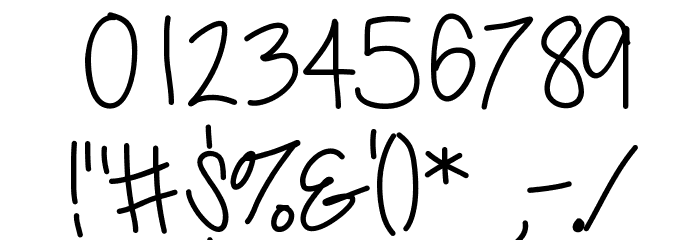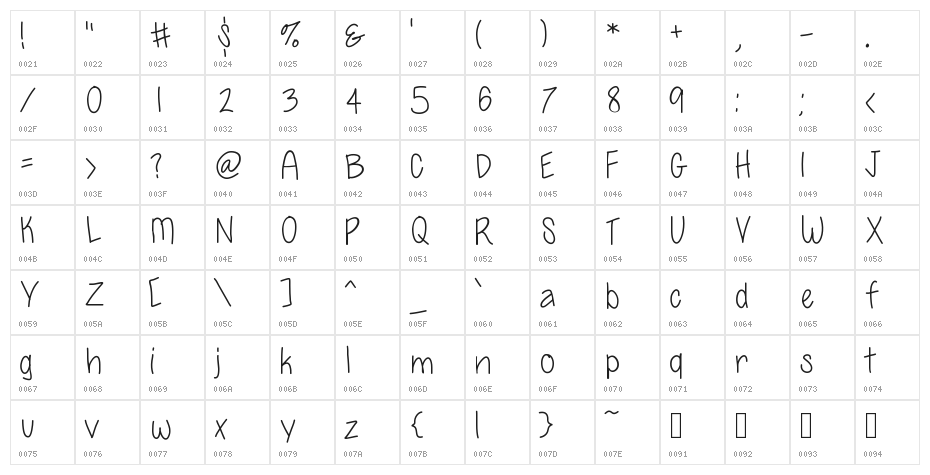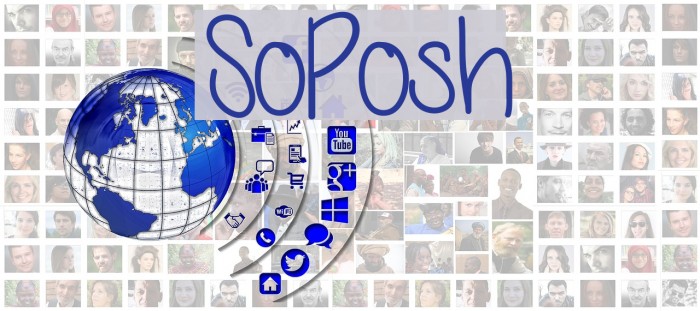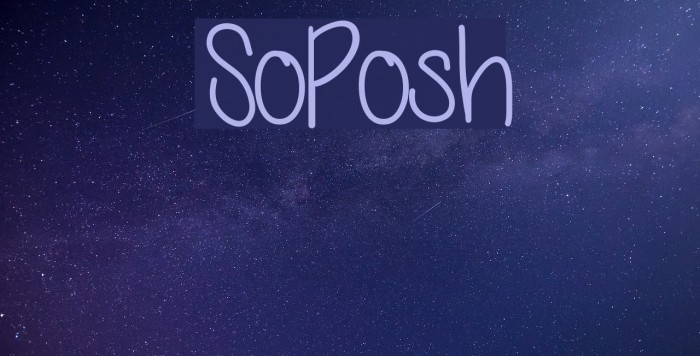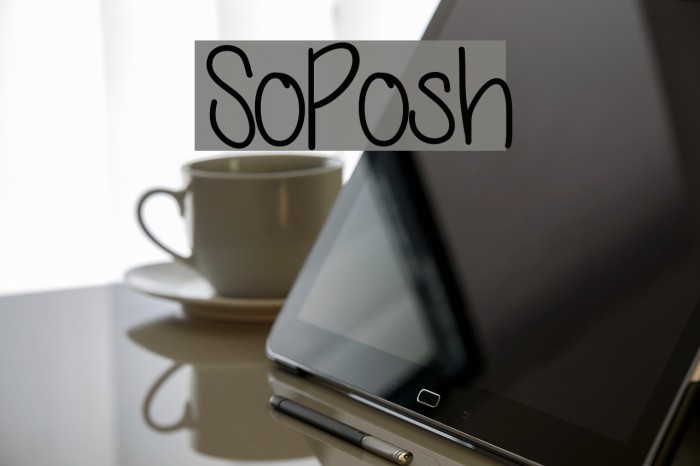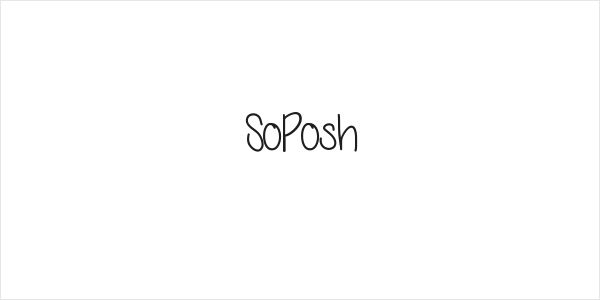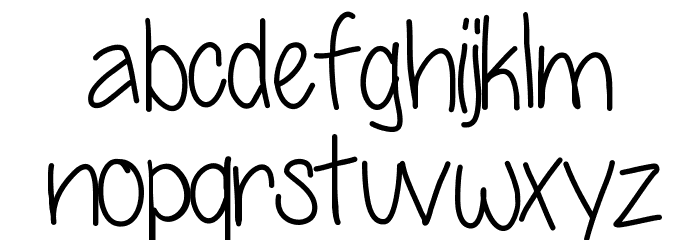
SoPosh Font
SoPosh Description
This font features a playful and casual handwritten style, characterized by its smooth, flowing lines and slightly irregular shapes. The letters have a consistent stroke width, giving it a uniform appearance while maintaining a lively and informal vibe. The uppercase and lowercase letters are well-balanced, with a slight tilt that adds to the font's dynamic nature. The numerals and special characters are designed to match the overall aesthetic, ensuring coherence across all elements. This font exudes a friendly and approachable feel, making it suitable for a variety of creative applications.
| Proposed Projects | Ideal for greeting cards, invitations, personal branding, and social media graphics. |